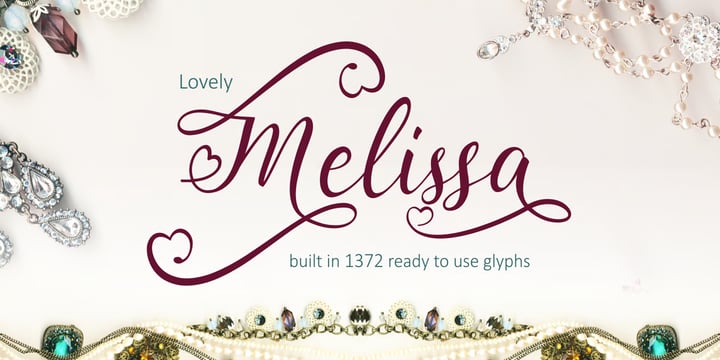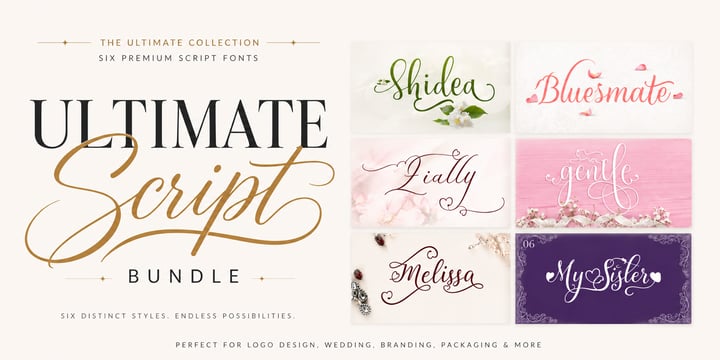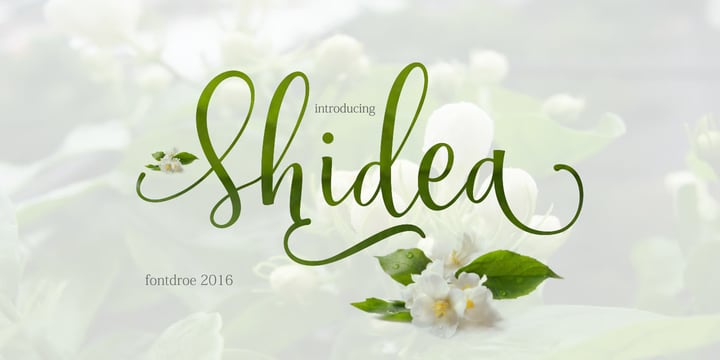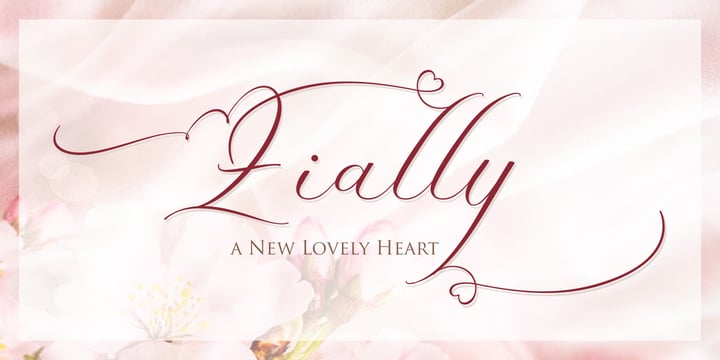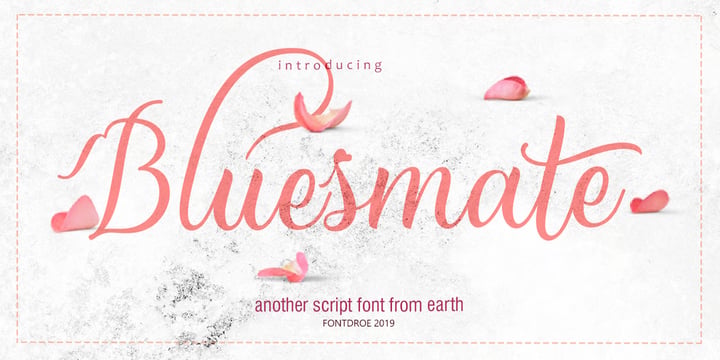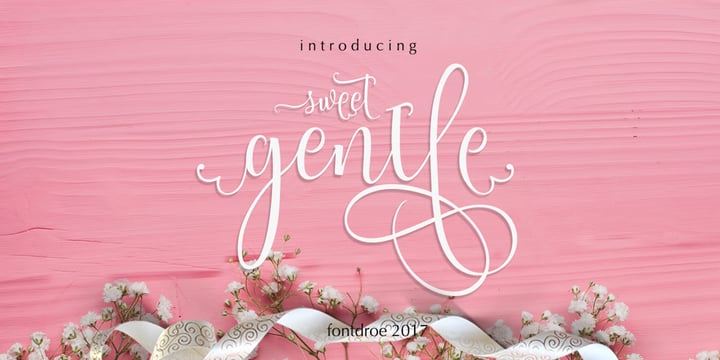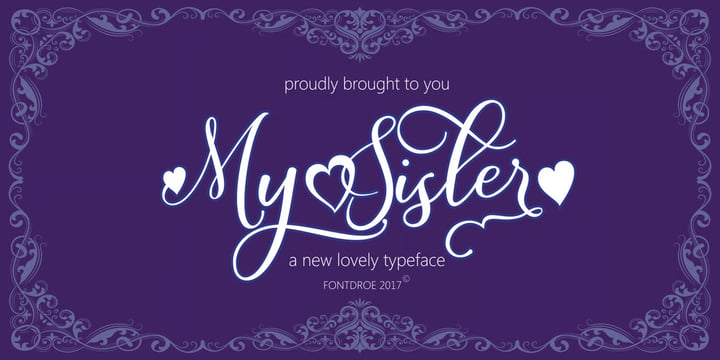
Ultimate Script Bundle
Ultimate Script Bundle is a curated collection of six premium script typefaces designed to bring elegance, personality, and versatility to every creative project. Each font offers its own distinctive handwriting style, from refined signatures and romantic calligraphy to playful lettering and expressive brush scripts, making the bundle suitable for a wide range of design applications.
Every typeface is equipped with an extensive collection of alternates, decorative swashes, ligatures, and stylistic variations, allowing you to create unique letter combinations with ease. Whether you're designing luxury branding, logos, wedding stationery, packaging, social media graphics, product labels, or editorial layouts, this bundle provides the flexibility to craft typography that feels custom and handcrafted. Created for designers, creatives, and small businesses, Ultimate Script Bundle combines beauty, functionality, and professional quality in one complete collection, giving you everything you need to build memorable visual identities with expressive script typography.